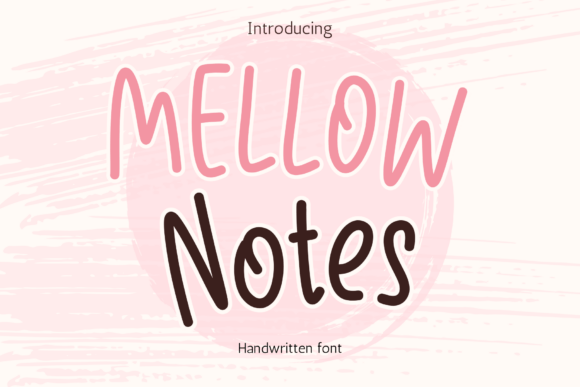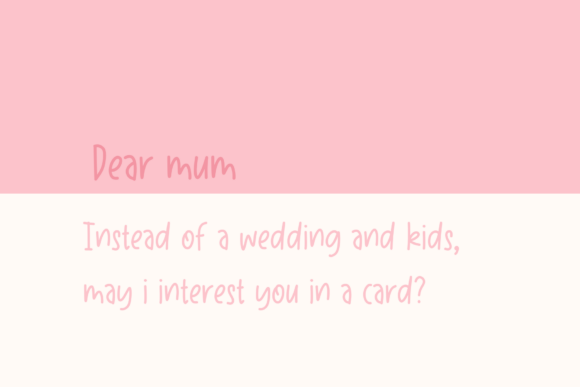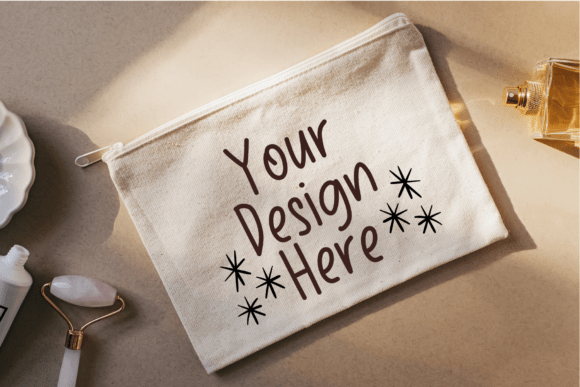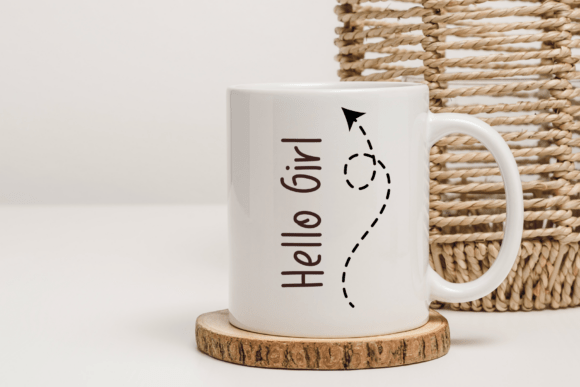
Mellow Notes Font: A Cute Handwritten Font for Cricut & DIY Projects
About the Mellow Notes Font
Elevate your designs with Mellow Notes Font, a font that combines sophistication with readability. Mellow Notes is a handwritten font. It embodies playfulness and authenticity and is the perfect choice for all your favorite projects, or even for blog posts, logos, branding, ads, invitations, greeting cards, planners, photo albums, decorations, and much more. Add it to any of your designs, and enjoy the results!
Mellow Notes excels in projects requiring a friendly, approachable feel. It’s ideal for headlines, short text blocks on branding materials, invitations, and social media graphics. Its hand-drawn nature adds a personal touch, making it suitable for packaging of artisanal products or handcrafted items. However, avoid using it for body text or long paragraphs; its informal style isn’t easily legible for extended reading. Small sizes also lose clarity.
Consider pairing Mellow Notes with a clean sans-serif like Open Sans for a balanced contrast, or a playful script font like Pacifico for a more whimsical feel. A geometric sans-serif like Montserrat could provide a modern counterpoint, while a classic serif like Garamond would offer refined sophistication. The choice depends on the desired overall aesthetic.
Its core personality is undeniably playful and approachable, yet maintains a degree of sophistication. Therefore, brands targeting a younger demographic or those focused on handmade goods, crafts, or personal services would find it particularly effective.
Mellow Notes Font Usage Examples
Mellow Notes Font Example